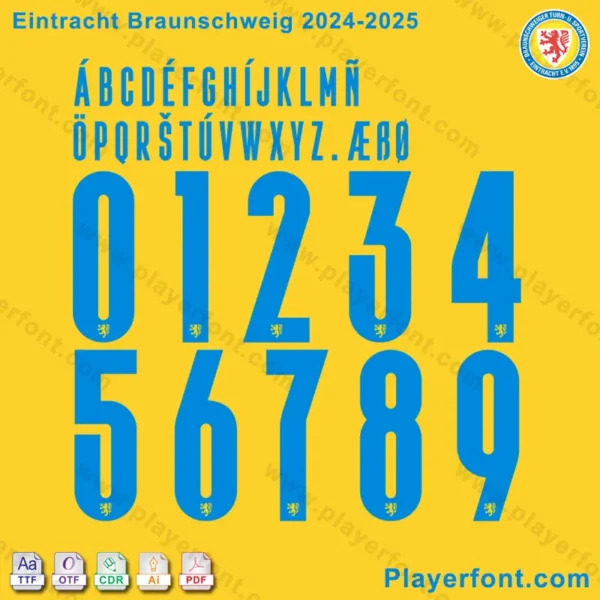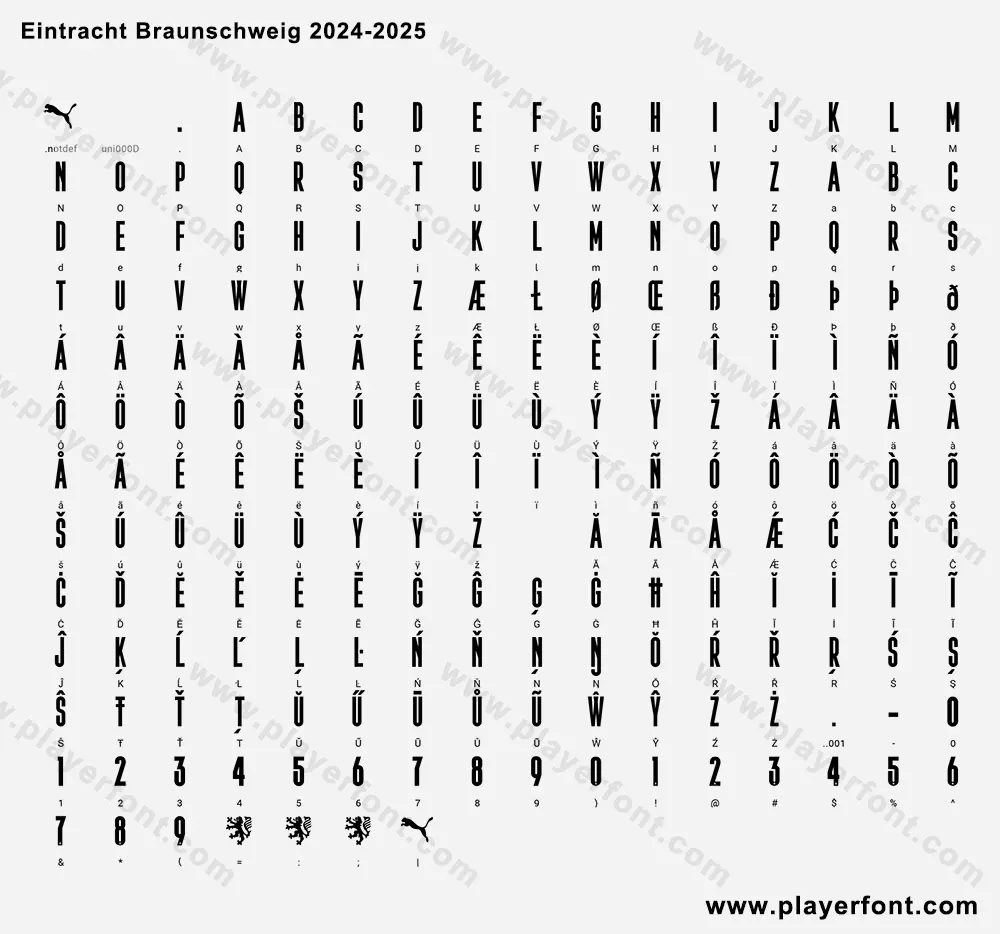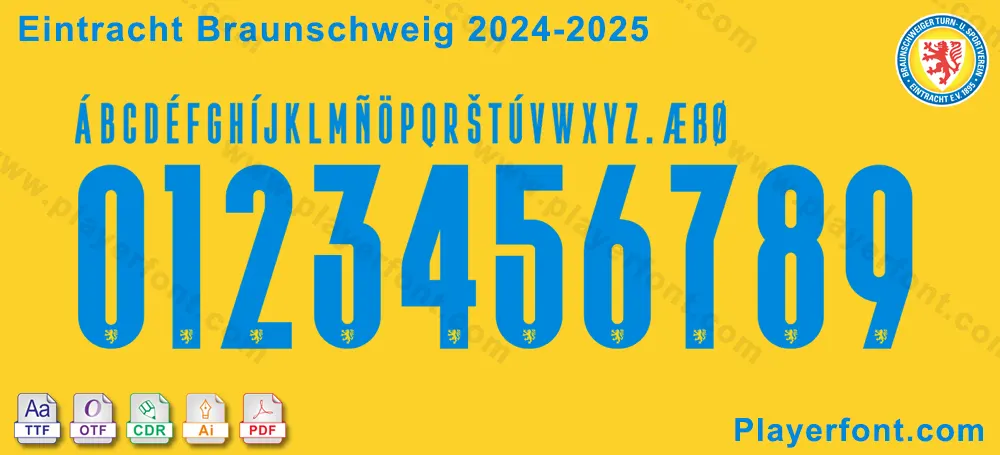
Eintracht Braunschweig 2024-2025 font preview showcasing numbers and letters.
Introducing the official Eintracht Braunschweig font for the 2024-2025 season. This font is used on the club’s football jerseys and official merchandise, and now you can download it to bring your creative projects to life.